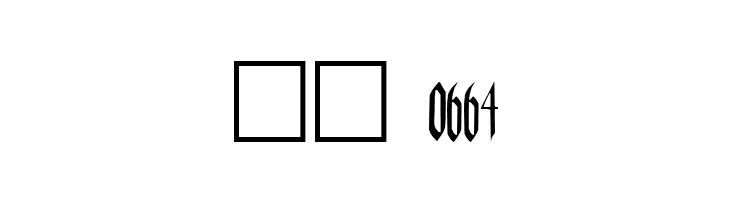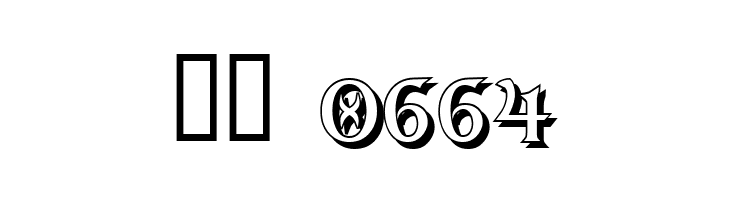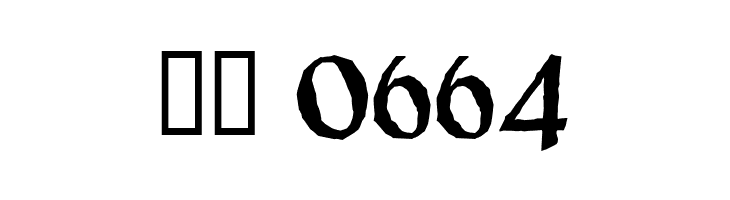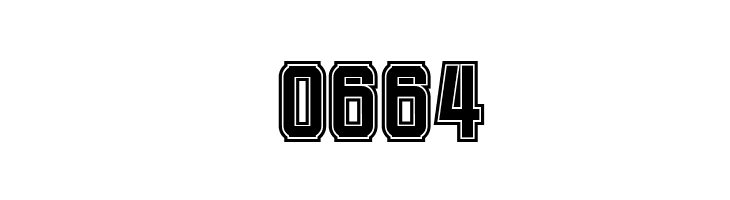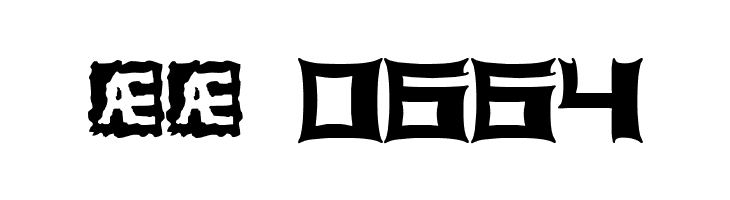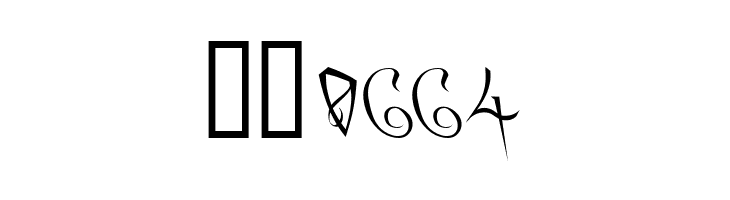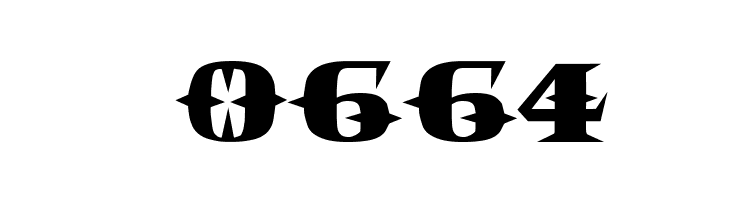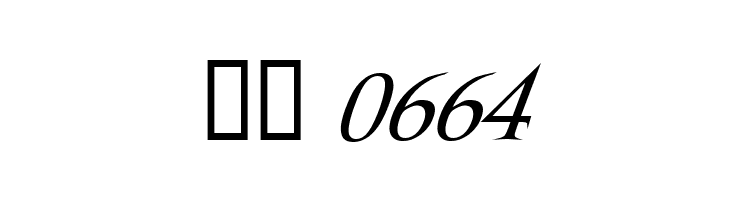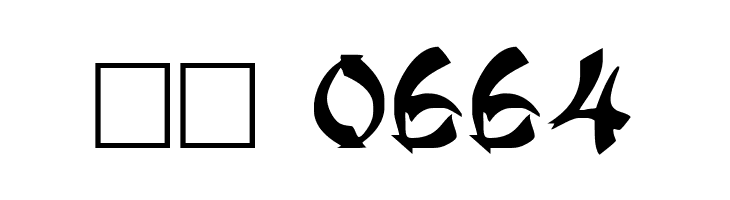
A bold, shadowed serif font with a dramatic and elegant style.
( Fonts by Sinister Visions - Chad Savage - www.sinisterfonts.com )
A sharp, gothic-inspired font with angular lines and dramatic spikes.
( Fonts by Patrick Broderick )
A bold, gothic-style font with sharp, angular edges and a distressed look.
A bold, outlined font with a medieval, fantasy-inspired design.
( Fonts by Harold Lohner - www.haroldsfonts.com )
A bold, cinematic font with a vintage film reel aesthetic.
( Fonts by Astigmatic One Eye Typographic Institute - Brian J. Bonislawsky - astigmatic.com )
A bold, artistic font with a hand-drawn, layered appearance.
An artistic, left-leaning font with dramatic, elongated strokes and ornate details.
( Fonts by The Scriptorium - Dave Nalle )
A bold, Gothic-style font with sharp serifs and dramatic flair.
( Fonts by www.kiwi-media.com )
A dramatic, oblique font with sharp, angular strokes and a mysterious elegance.
( Fonts by Meir Sadan - www.sadan.com Коммерческие Шрифта )
A distressed, gothic-style font with a bold, grunge appearance.
( Fonts by DeNada Industries )
A bold, angular font with high contrast and a modern, dramatic style.
( Fonts by Dieter Schumacher )
A decorative font styled like vintage film strips, ideal for cinematic themes.
A bold, gothic-inspired font with sharp, abstract shapes.
( Fonts by ARRF Designs )
A bold, high-contrast font with sharp angles and a gothic flair.
( Fonts by Dieter Schumacher )
A bold, cinematic font styled like movie clapperboards.
( Fonts by Astigmatic One Eye Typographic Institute - Brian J. Bonislawsky - astigmatic.com )
A bold, modern font with a unique horizontal line pattern for a dynamic look.
( Fonts by Astigmatic One Eye Typographic Institute - Brian J. Bonislawsky - astigmatic.com )
A festive, decorative font with characters inside Christmas ornaments, ideal for holiday themes.
( Fonts by Rick Mueller )
A bold, medieval-inspired font with sharp serifs and dramatic strokes.
( Fonts by Paul Lloyd )
A shadowed blackletter font with intricate Gothic details.